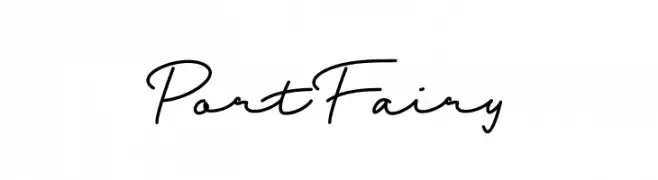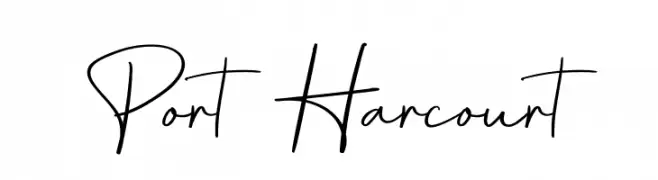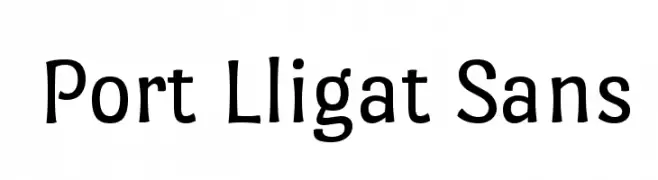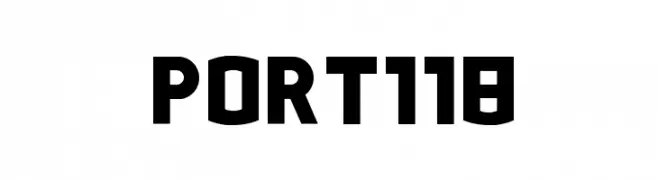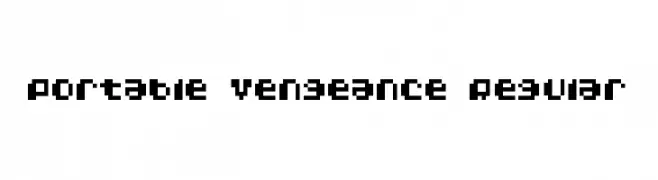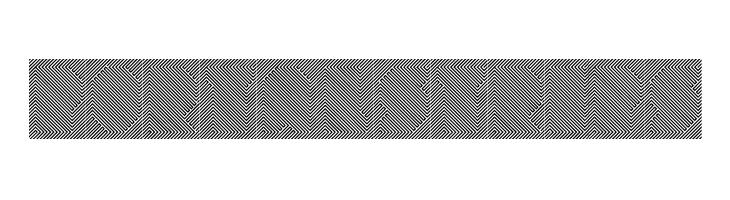
A bold, modern serif font with sharp angles and strong vertical emphasis.
A fluid and elegant script font with smooth, flowing lines and cursive letterforms.
A flowing, handwritten font with elegant cursive characters.
A modern sans-serif font with a playful touch and subtle stroke variation.
A robust slab serif font with strong, block-like serifs and a classic yet modern style.
A bold, geometric font with sharp edges and a modern aesthetic.
An intricate decorative font with elaborate patterns and Art Nouveau influences.
A bold, rounded, and playful font with a chunky appearance.